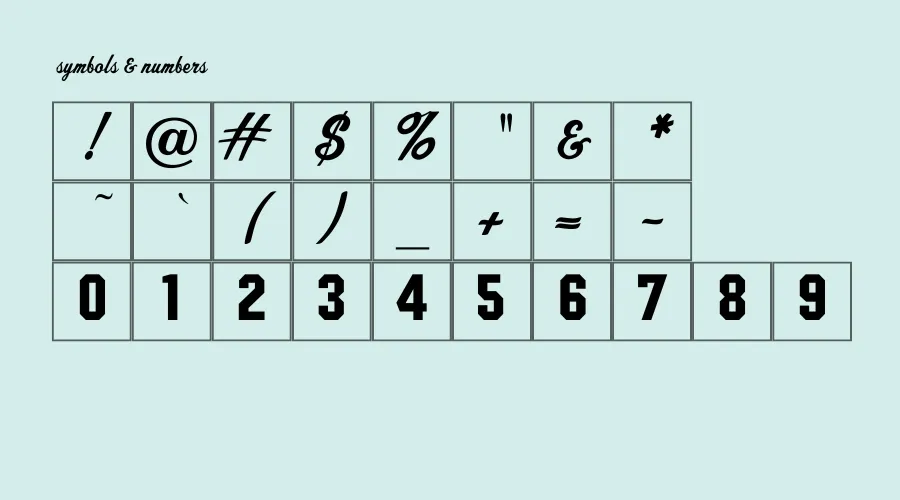
Sport Script Font
About Sport Script Font
OPTIFONT created Sport Script Font it is a script style. A lovely typeface with over a hundred characters, including punctuation, numerals, icons, and uppercase letters. It supported OTF, and TTF Format. You can use this typeface to make your projects attractive with its unique style.
There are several ways in which you can utilize its advanced features for official purposes. If you want to pair this typeface with barrio rifa font, you can go with that. With it, you will get the best results for both your clients’ projects and your own.
Because of its stylish glyphs, it is perfect for a wide range of designs. As well as being perfect for use in food design and naming, this font is also suitable for use in logos. The font is very popular among designers and is used for web development and design.
Many designers use this typeface since it is supported by a variety of languages. Utilizing this typeface will enhance the appearance of your designs. Use this typeface to create attractive headlines and titles. Try this attractive typeface for menus, assignments, quotes, and presentations.
This tool is great for awesome designs because it has a copy/paste function. This typeface is best compared to the high destiny script typeface. For thumbnail designs, theme designs, and other design projects, this stunning typeface is often selected by designers. This typeface is very similar to the miller text font.
This attractive typeface has bold strokes that are perfect for elegant logo designs, posters, banners, etc. Aside from brochure layouts, it is also suitable for product designs, label designs, banner designs, clothes designs, etc.
Can I use Sport Script Font for logo designs?
Logos for YouTube channels, Instagram accounts, business websites, and shipping websites are best created using this font.